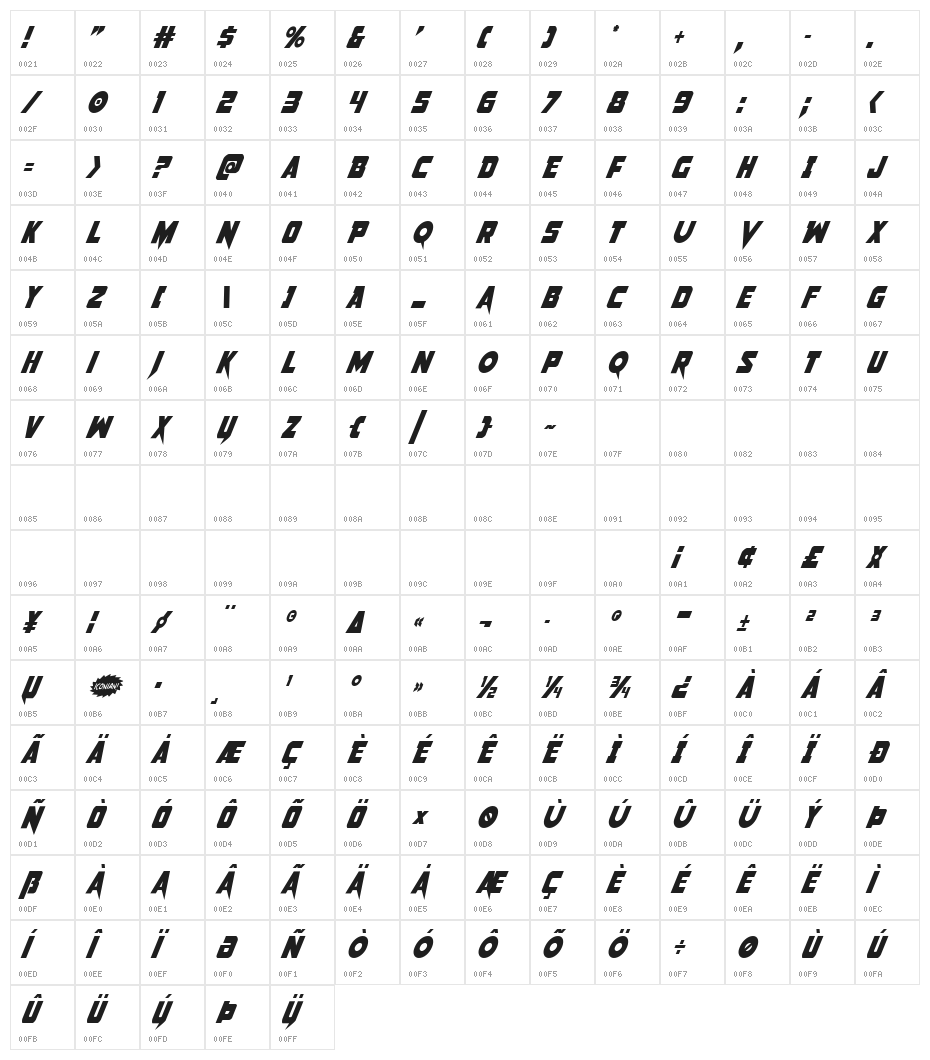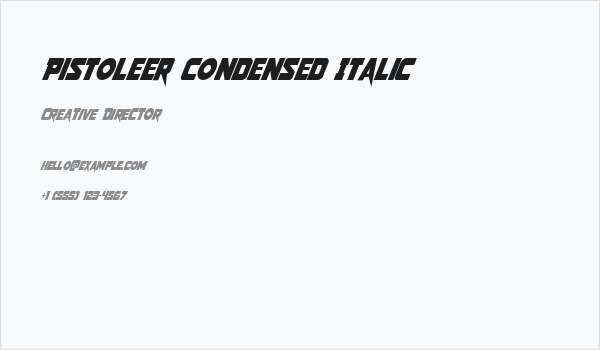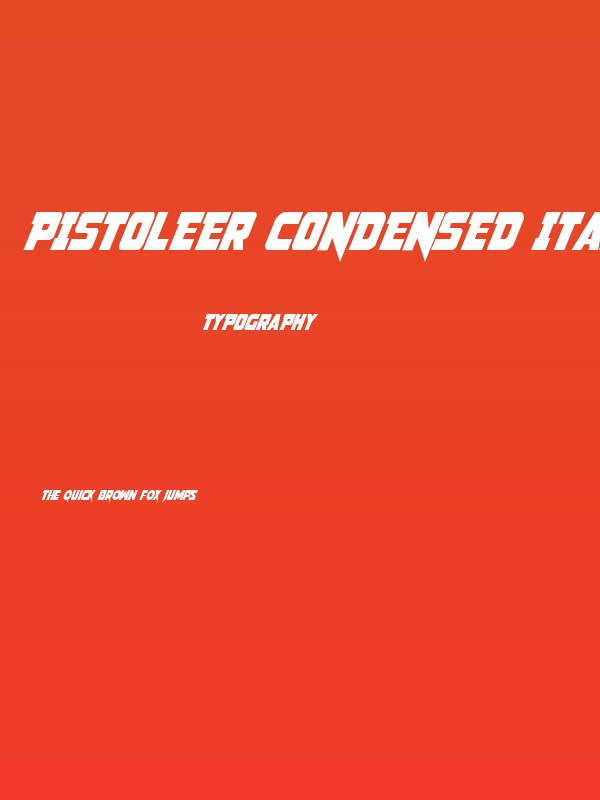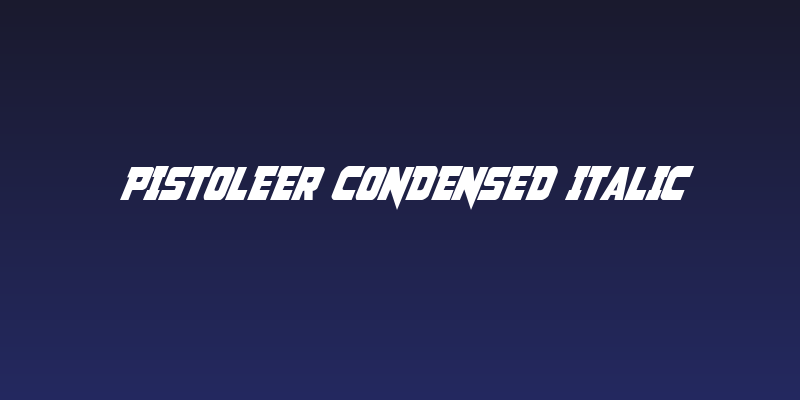
Pistoleer Condensed Italic Font
Pistoleer Condensed Italic Description
This font features a bold and dynamic design with sharp, angular edges and a condensed structure. The italic slant adds a sense of motion and energy, making it ideal for impactful headlines and attention-grabbing designs. The uppercase and lowercase letters maintain a consistent style, with unique cutouts and pointed terminals that enhance its modern and edgy appearance. Numbers and special characters are equally bold and stylized, ensuring uniformity across all text elements. The font's condensed width allows for efficient use of space without sacrificing readability.
| Proposed Projects | Ideal for sports branding, action movie posters, video game titles, and dynamic advertising campaigns. |